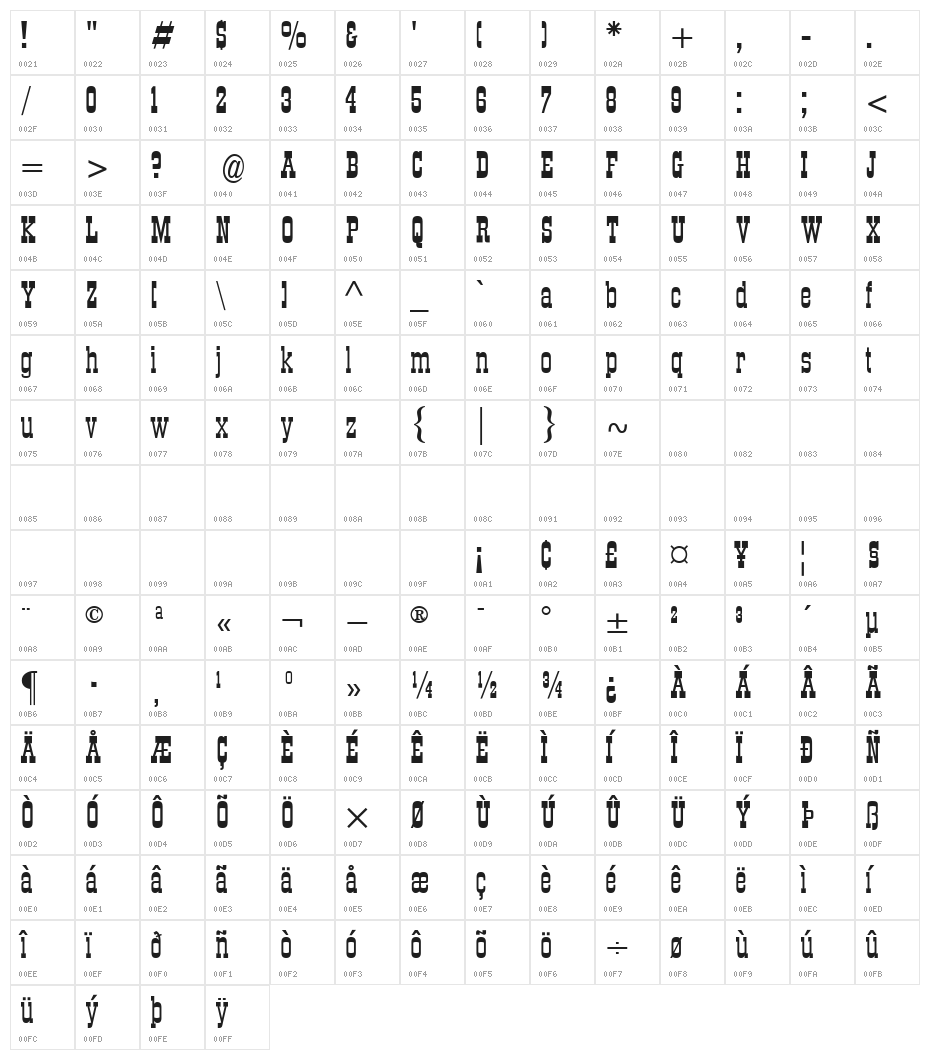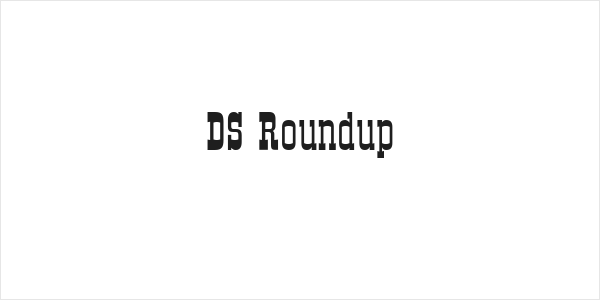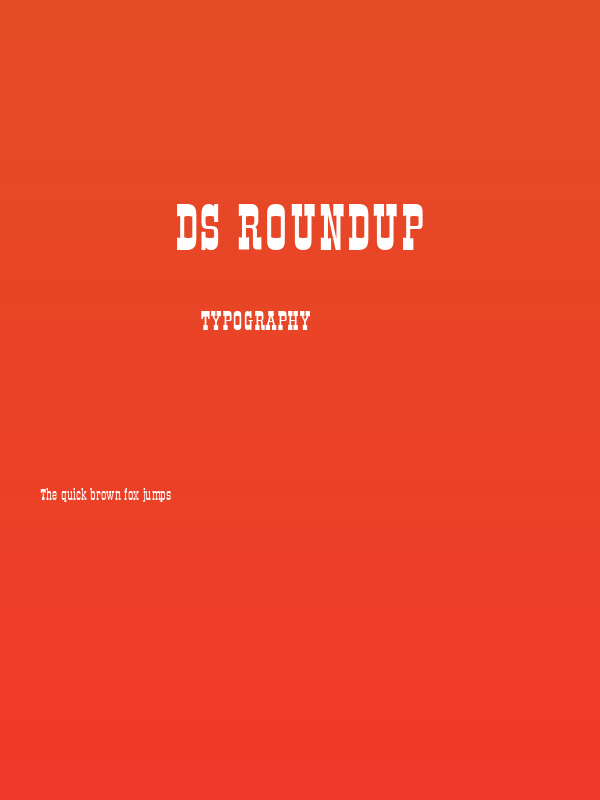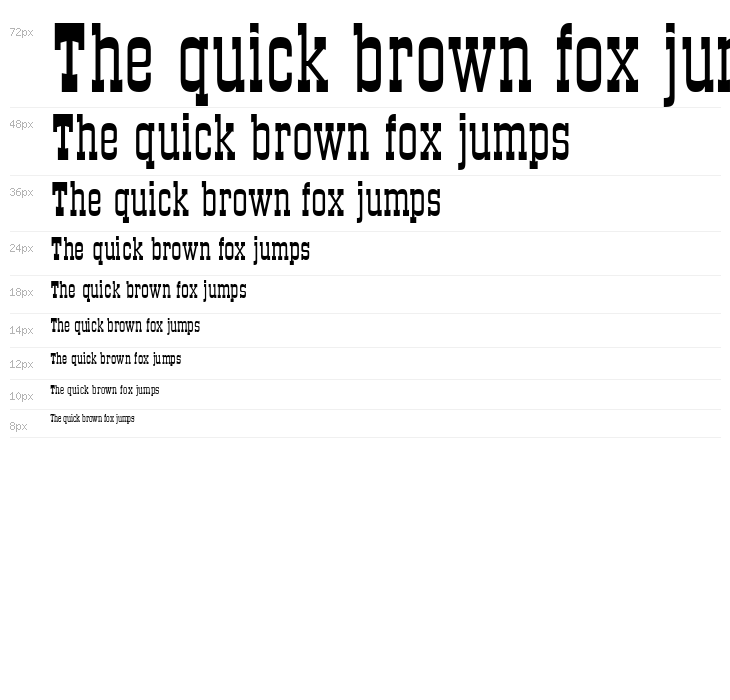
DS Roundup Font
DS Roundup Description
This font features a bold and robust slab serif style, characterized by thick, block-like serifs and a strong presence. The uppercase letters are particularly striking, with a uniform height and width that convey a sense of stability and confidence. The lowercase letters maintain a consistent style, with slightly rounded edges that add a touch of softness to the otherwise bold design. The numerals are equally bold, ensuring they stand out in any context. Special characters are designed with the same attention to detail, making them easily recognizable and visually appealing. The overall look is both modern and classic, suitable for a variety of design needs.
| Proposed Projects | Ideal for branding projects, headlines, posters, and any design that requires a strong, impactful typeface. |